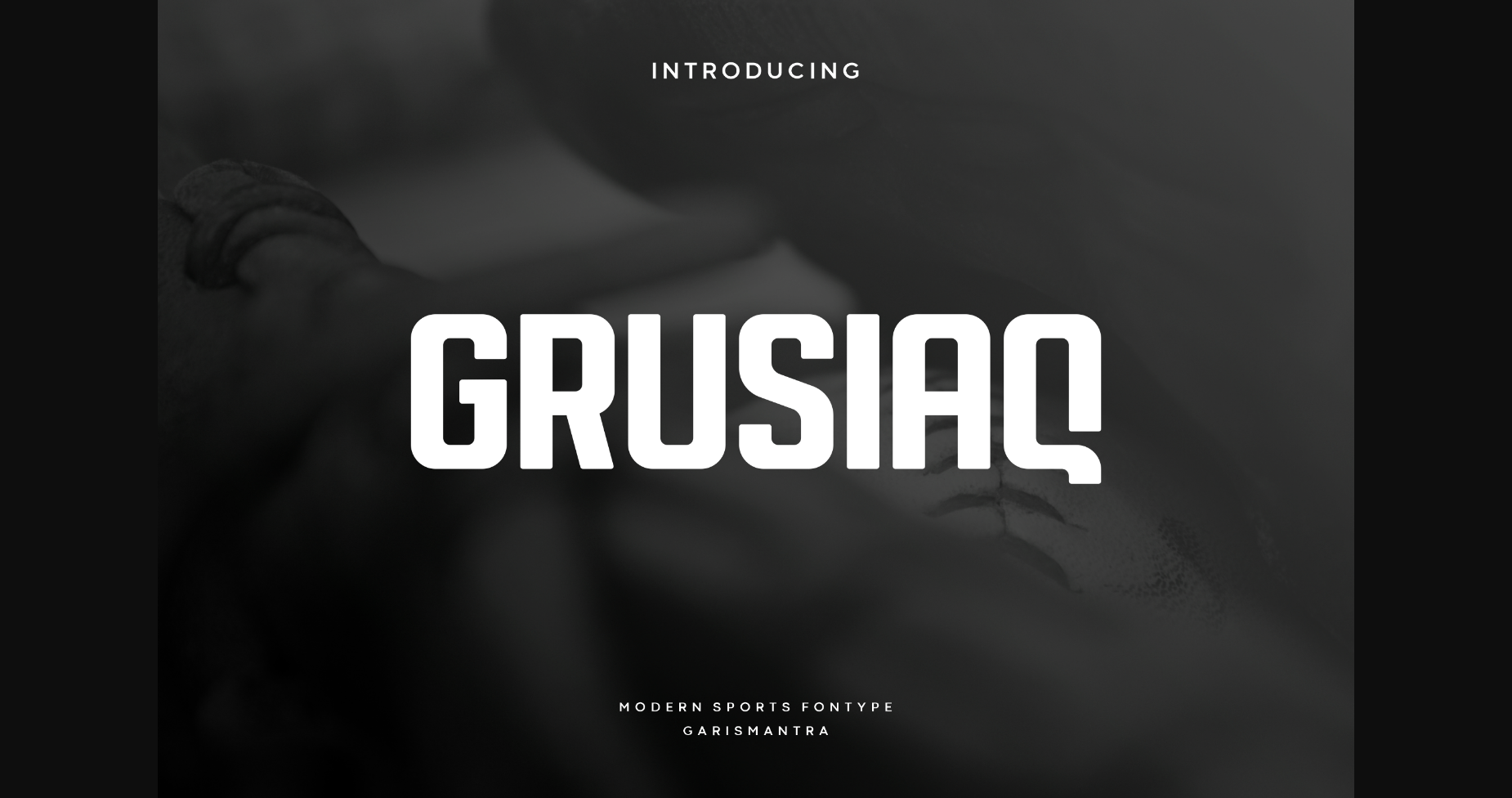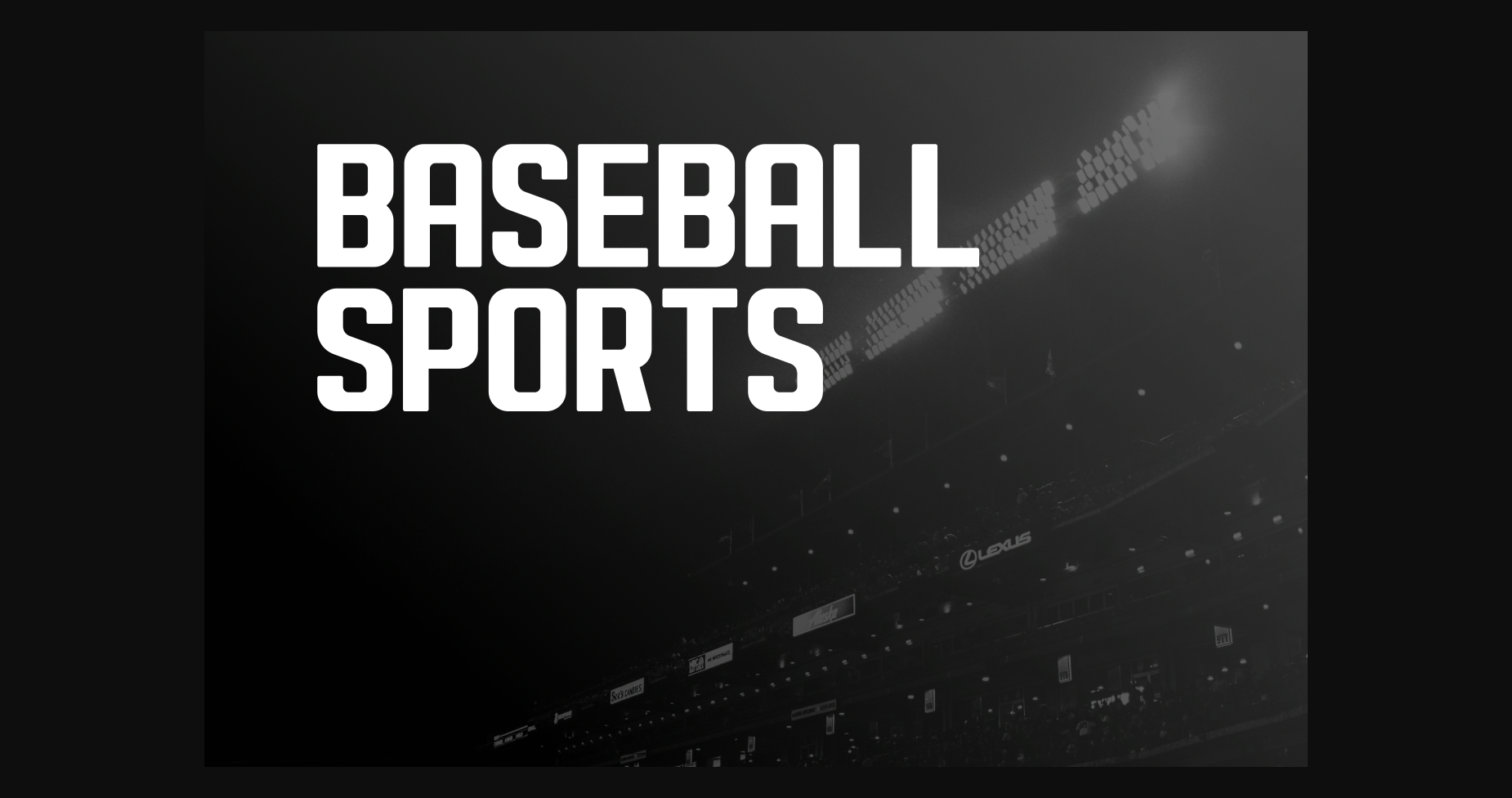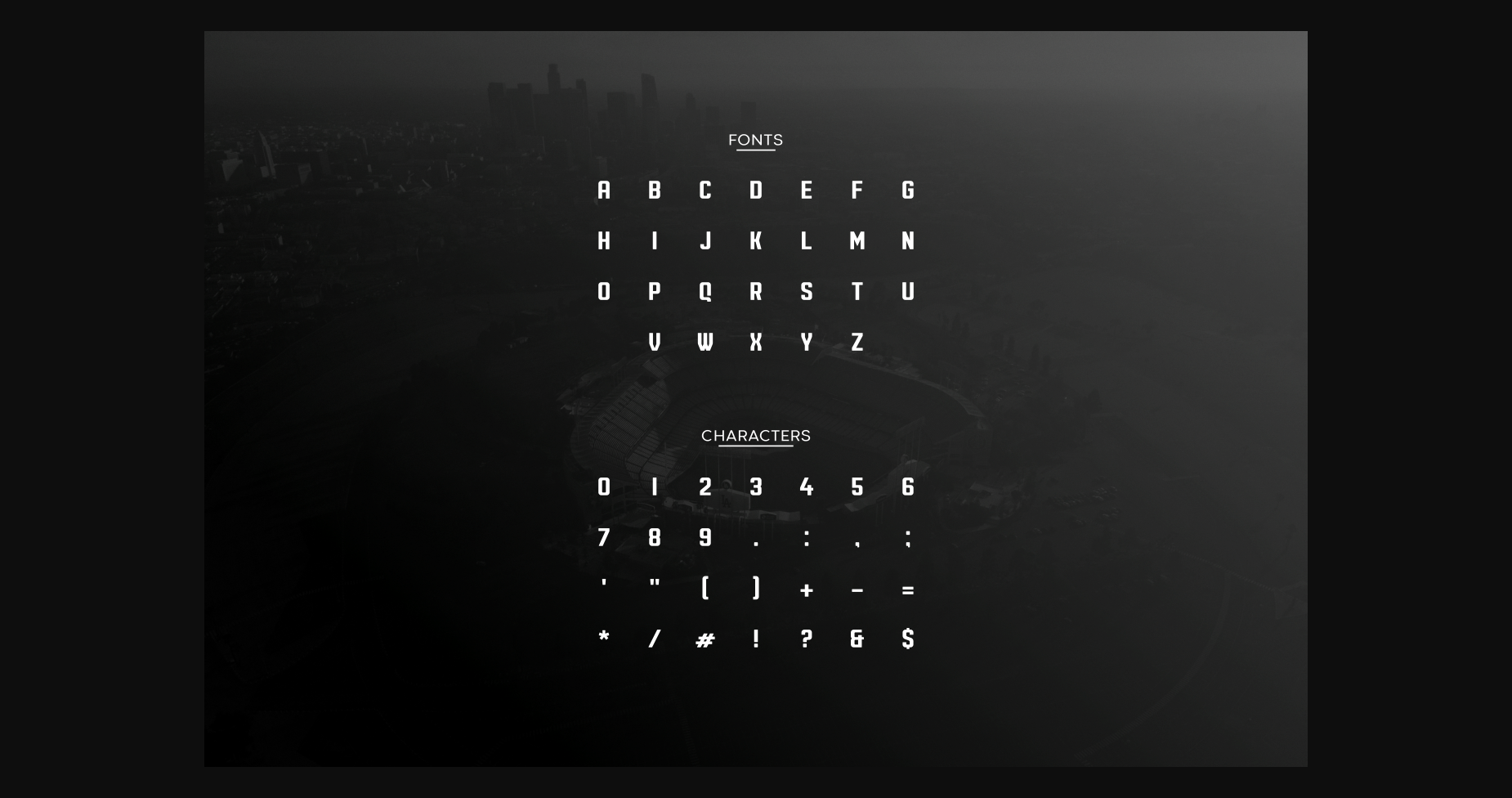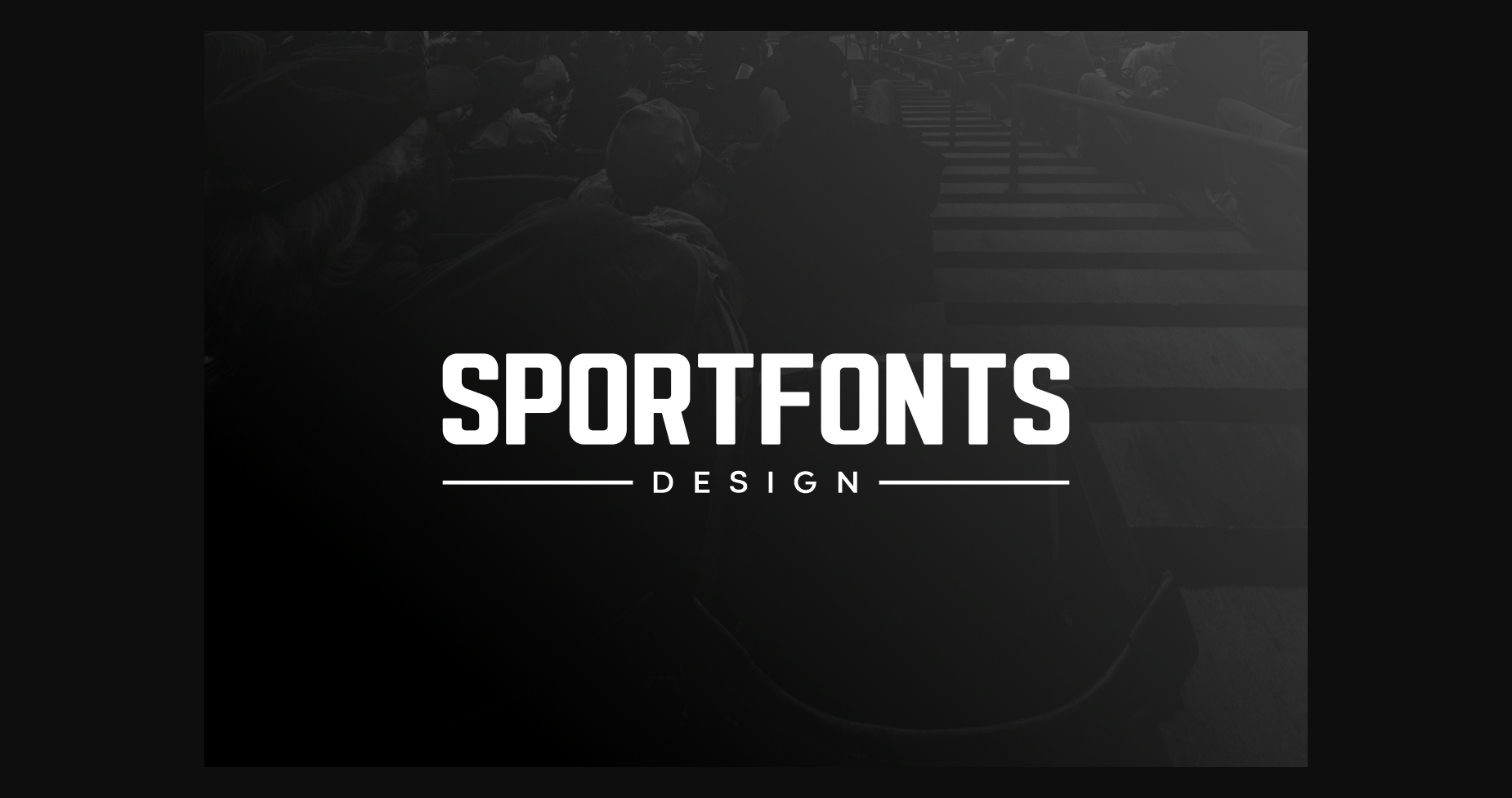
About Grusiaq Font
Grusiaq is a decorative typeface that brings a mix of classic and modern into a new styles, minimalist style with rounded accent in every corner. This typeface is only available in all caps, will suit a variety of design needs, very suitable for making logo designs, headlines, also titles that are related to sports themes. Get it right away and use your imagination for more interesting, different and unique designs.